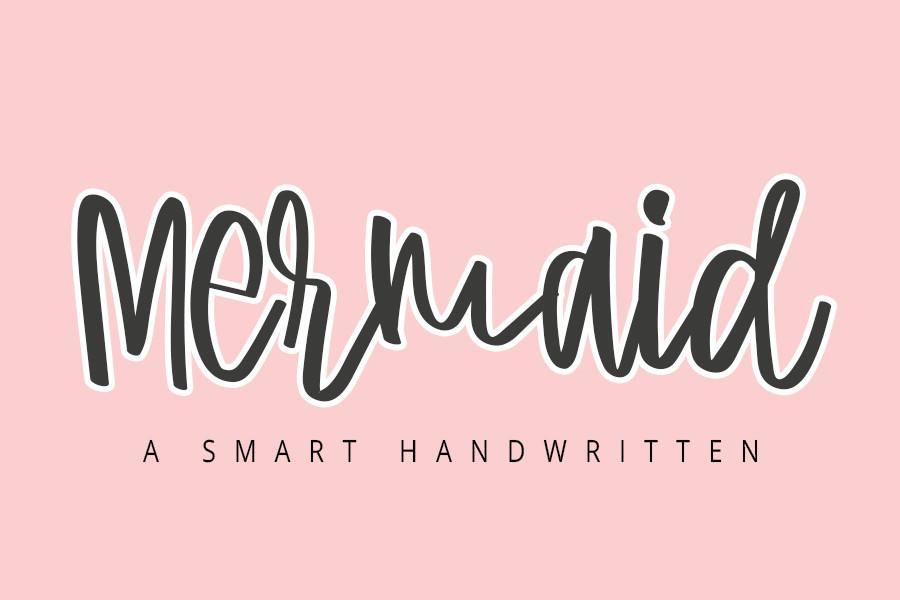
Mermaid Font Description
Mermaid is an elegant script font with a contemporary atmosphere and impeccable form, inspired by timeless classic calligraphy. Not too thin and not too thick, balanced and varied, this font was designed to enhance the beauty of your projects.